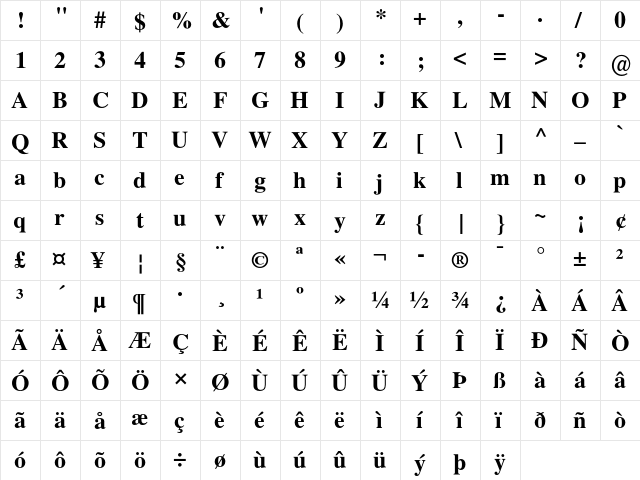
NimbusRomNo9L Bold
| Foundry | (URW)++ Design & Development |
Design Context for NimbusRomNo9L Typeface
NimbusRomNo9L is a composed and adaptable typeface that performs quietly and consistently across a wide range of design contexts. The heavy weight commands attention and anchors typographic hierarchies.
Pro Tip: Use NimbusRomNo9L in both headline and body roles to test its range before committing to a single application.